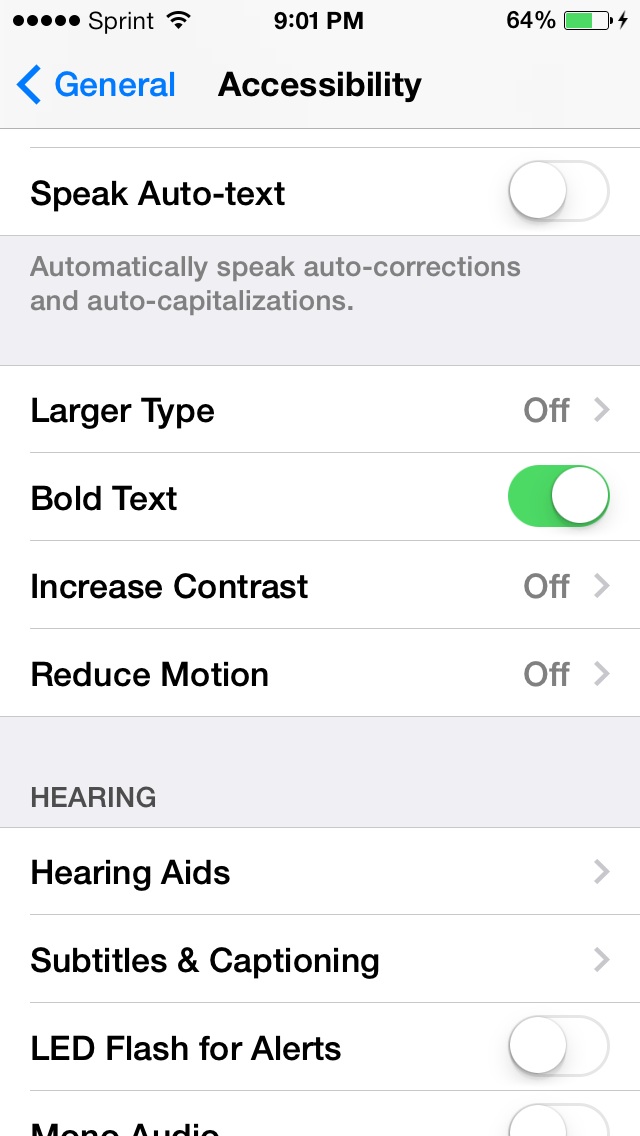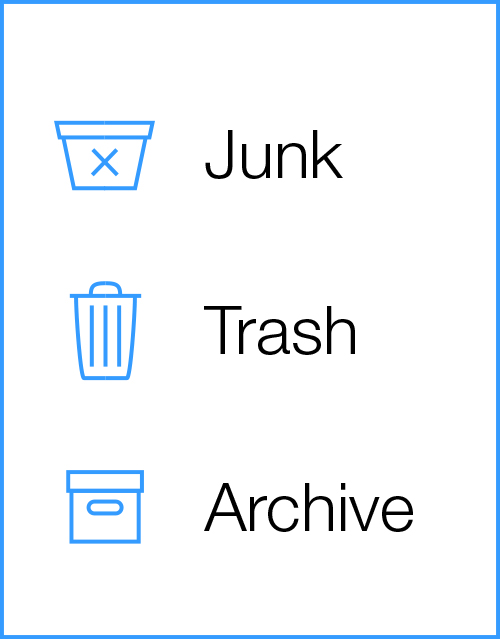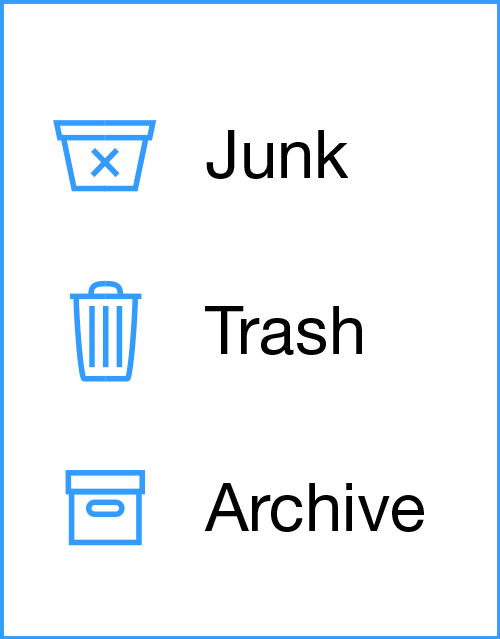
Edit - Cliff notes: Basically I'm saying that that since the main system font has been thickened, it doesn't match up with the rest of the design. I feel like a lot of thought was put into iOS 7 for it to have a thin linear aesthetic (with super thin lines, wireframe-like icons, etc.) However, now that the default font has been changed but nothing else, it feels like the orignal design philosophy has been undermined, and Apple is in quite a predicament.
The purpose of large type being very thin and smaller type being thicker was to give the type a consistent feel. For example, the time on the lock screen is in Helvetica Neue Ultra Light, but because it's so large, it's roughly the same thickness as the type underneath it.
Let me use the Weather app to illustrate. In the first image is how the weather looks in beta 1 and 2. You can see that the weights look consistent with each other. The second picture is what we have in beta 3. Apple chose to increase all instances of Helvetica Neue Light to Helvetica Neue Regular, however, left any instances of Helvetica Neue Ultra Light untouched. Now the word Cupertino looks too heavy, and not as good as before. If they wanted to increase the size weight of one font, they should have cascaded that effect down through the rest of the system. For example, the third image have the temperature weight stepped up one notch to Helvetica Neue Thin.
The problem is that Dynamic Type only applies to certain type. If it was to expand to all text, I think this problem would be easy to remedy. Also, it could give users varying levels of options for how bold they want their type, without ruining the aesthetic of the typography. It would be nice to let users choose either the first option, the third, or an even bolder option. I never liked how the Bold Text option affected only some of the text making it look inconsistent, and now I'm concerned that these inconsistencies are present even in the default state.
Let's look at the iconography used in iOS7. If you watched the videos on what's new in iOS design, you probably remeber that the icons were drawn to match the weight of the system font. The lines were made to have the same thickness as Helvetica Neue Light. Let's look at how the icons used to be:
You can see pretty clearly how the icons have the same thickness as the text. The next pictures shows how the icons look next to the heavier font from beta 3:
You can bet the designers at Apple are not happy about this, considering that they designed the icons specifically to be used with the default font, they probably won't ignore that. I doubt this will be how the final product looks.
Now here are the changes I made to the icons to match the weight of the heavier font in beta 3:
After thinking about this, I can't see how Apple will keep the designs the way they are. I think they are planning to expand Dynamic Type to all text and even to their icons. That would explain why the icons are mostly all liner in appearance. A lot of people seem to like the change from Helvetica Neue Light to Roman, however, if this is all that Apple changes with the text, iOS7 will have lost its entire philosophy regarding typography and iconography.
I'm very interested to see how Apple resolves this problem, because I don't see any way to do so without them having to make the font changes cascade through the system.
I agree that these kinds of little "details" need to be addressed. And I do have fairly that bringing these kinda of things to light will be what makes the GM perfect.
Hopefully they'll bring back the original font or something close to it. There's a lot of betas still to come.
you guys realize that in the settings you can change your font size right? I noticed this because when i updated i didn't like the way that i was so large so i went in hoping to find a settings tab and i did. it's in general.
I've heard this, but can you make the font thinner like in Beta 1 and 2?
I think you missed the OP point.
It's not that you can't change the fonts weight, it just when you do, it actually only changes certain text, not it all, and not the icons so you end up with inconsistent weighting across apps.
To be honest i never really noticed that. I was just content to see that i could thin out the text because i hate that bulky large one. I'm sure they'll notice this and fix it as more betas come out if not by the final released one. They fixed a lot of the other problems.